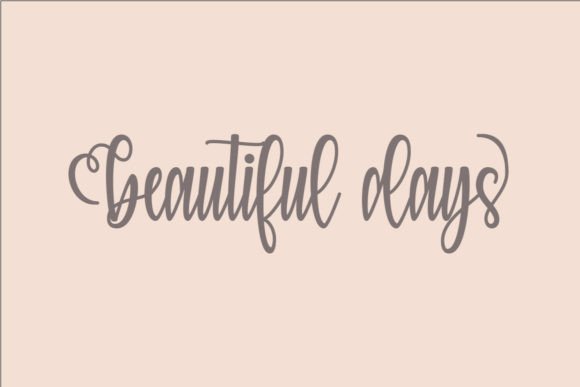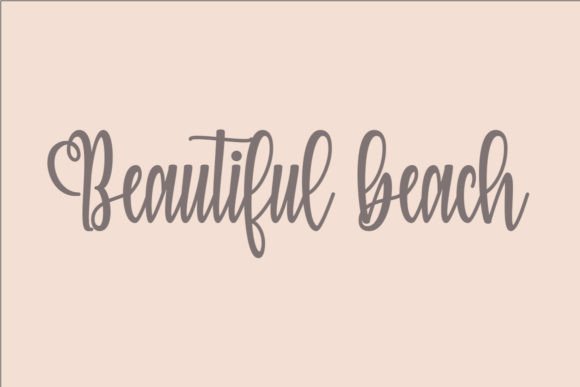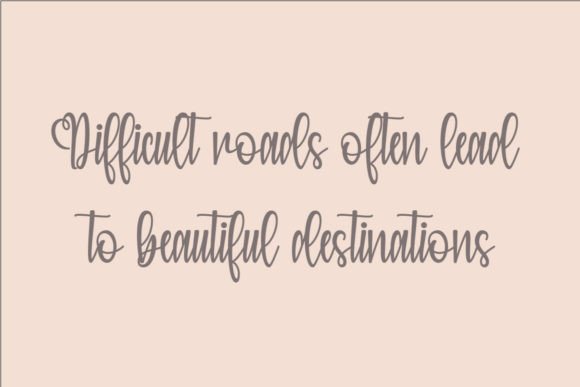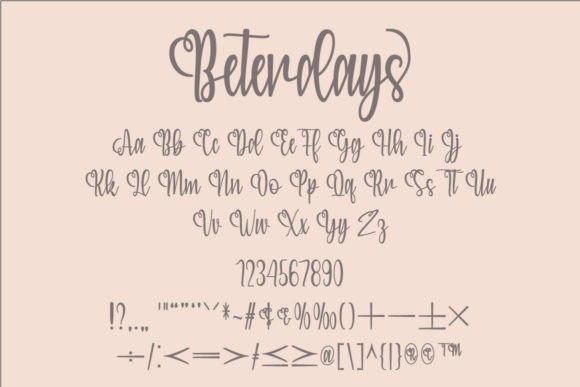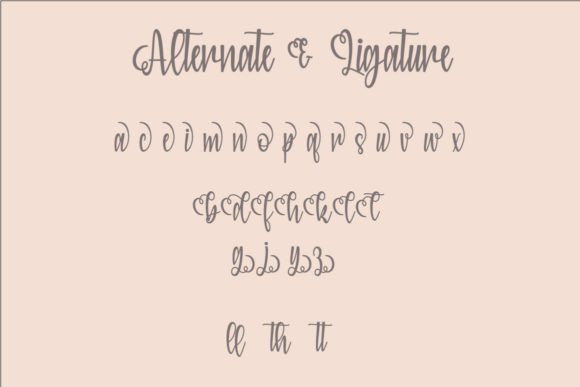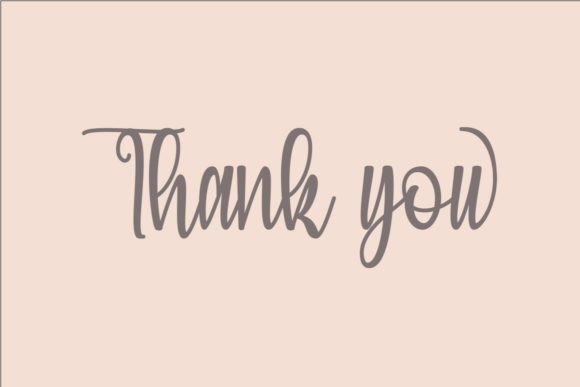
Betterdays Font: The Enchanting Handwritten Typeface for Your Creative Projects
Are you a designer or crafter looking for a unique and versatile font to elevate your creative projects? Look no further than Betterdays Font! This enchanting handwritten typeface is perfect for a wide range of applications, from greeting cards to headlines, and is sure to add a touch of magic to your designs.
What Makes Betterdays Font So Special?
Betterdays Font is a beautifully crafted handwritten font that boasts a unique and captivating charm. Its elegant strokes and flowing lines make it perfect for creating eye-catching headlines, posters, and social media graphics. But what really sets Betterdays apart is its versatility. Whether you’re designing a greeting card, a wedding invitation, or a blog post, this font is sure to add a touch of whimsy and sophistication.
One of the best things about Betterdays Font is that it’s PUA (Private Use Area) encoded. This means that you can access all of the glyphs and swashes with ease, giving you even more creative freedom to experiment with different styles and designs. With PUA encoding, you can easily insert special characters, ligatures, and ornaments into your text, making it truly unique and eye-catching.
Applications for Betterdays Font
So, what can you use Betterdays Font for? The possibilities are endless! Here are just a few ideas to get you started:
- Greeting cards: Create beautiful and personalized greeting cards for special occasions like birthdays, weddings, and holidays.
- Headlines: Add a touch of elegance and sophistication to your headlines with Betterdays Font.
- Posters: Create eye-catching posters for events, promotions, or products with this stunning handwritten font.
- Social media graphics: Elevate your social media graphics with Betterdays Font and make your posts stand out from the crowd.
- Wedding invitations: Design beautiful and romantic wedding invitations with this enchanting font.
- Blog posts: Add a touch of personality and whimsy to your blog posts with Betterdays Font.
Why Designers and Crafters Love Betterdays Font
Designers and crafters love Betterdays Font for many reasons. Here are just a few:
- Unique and eye-catching: Betterdays Font is truly one-of-a-kind, making it perfect for designers and crafters who want to stand out from the crowd.
- Versatile: This font can be used for a wide range of applications, from greeting cards to headlines.
- Elegant and sophisticated: Betterdays Font adds a touch of elegance and sophistication to any design.
- Easy to use: With PUA encoding, accessing glyphs and swashes is easy and convenient.
Tips for Using Betterdays Font
Here are a few tips for using Betterdays Font in your designs:
- Experiment with different sizes and colors to find the perfect combination for your design.
- Use the glyphs and swashes to add a personal touch to your designs.
- Pair Betterdays Font with other fonts to create a unique and eye-catching combination.
- Don’t be afraid to get creative and try new things – Betterdays Font is perfect for experimenting with different styles and designs.